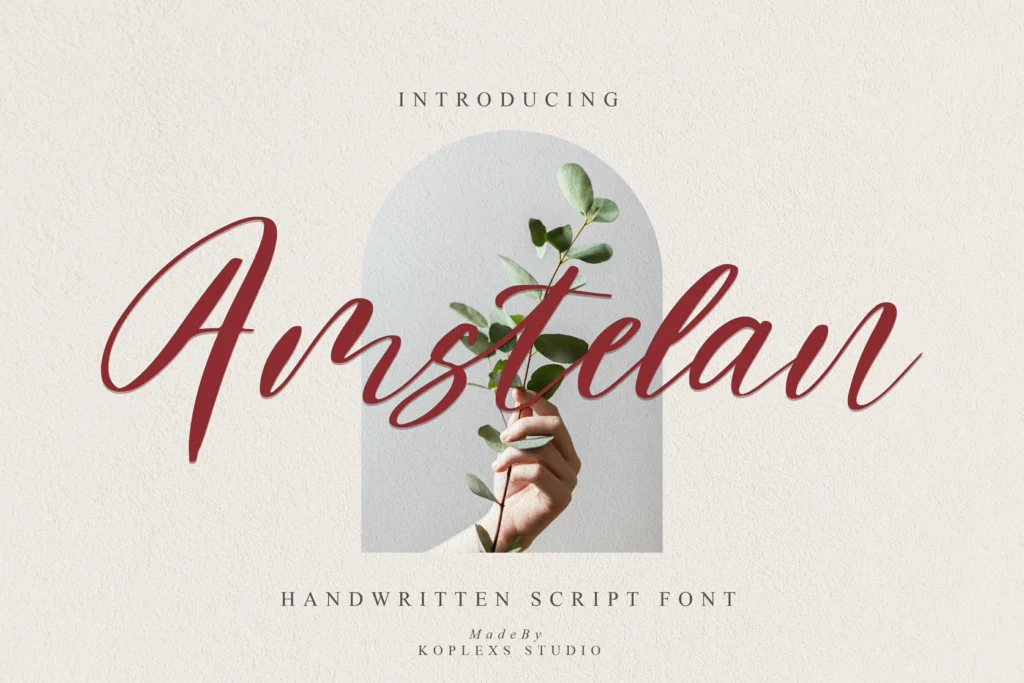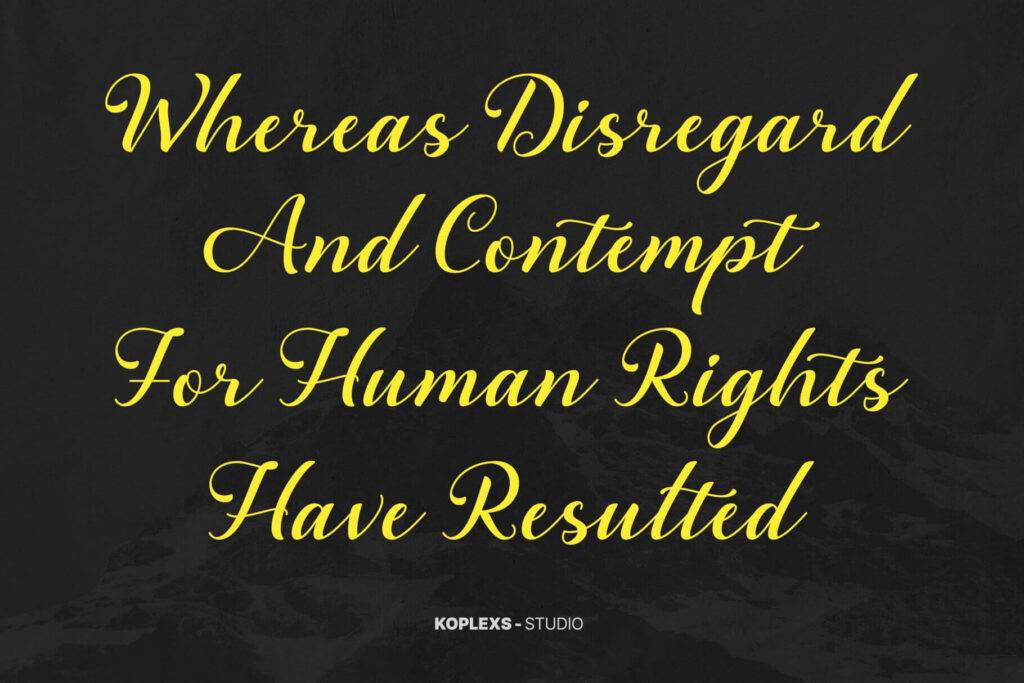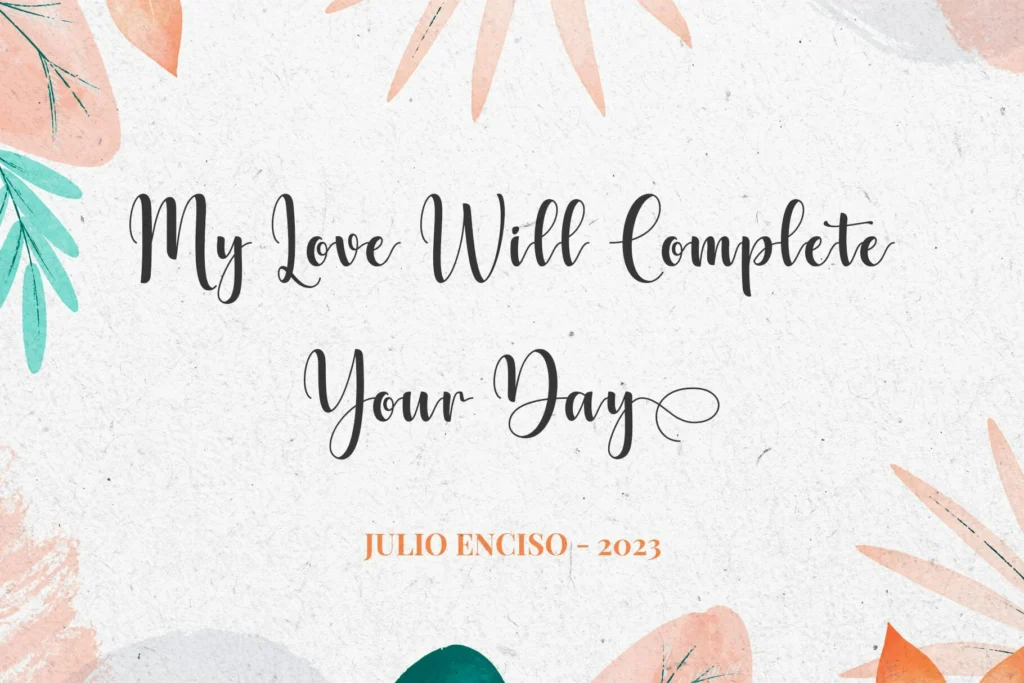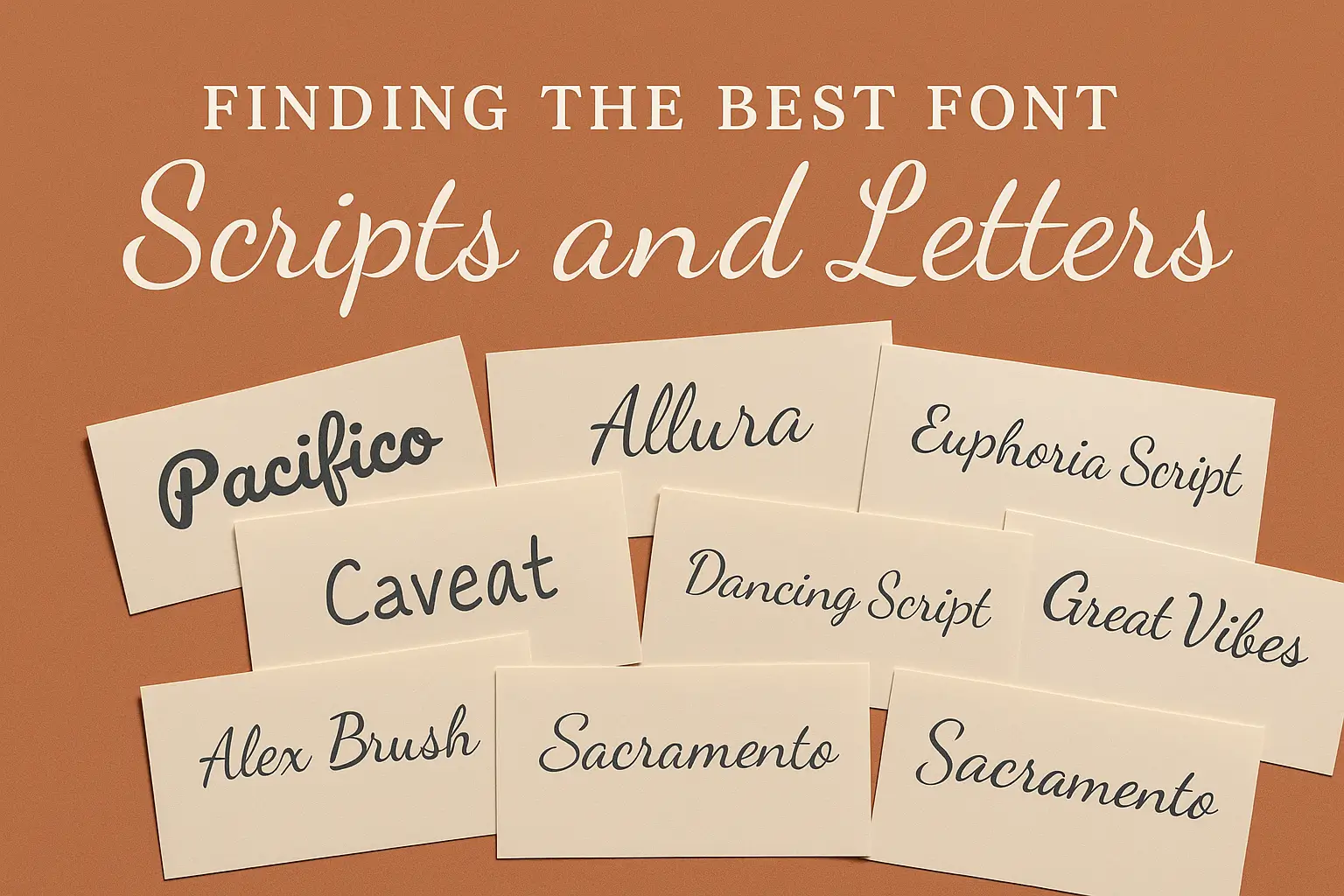
Finding the Best Font for Scripts and Letters
Font for Scripts
Font for Scripts That Bring Words to Life
Imagine reading a wedding invitation, a movie script, or a brand logo that instantly feels elegant and emotional. That is the power of a font for scripts. Fonts are not just letters; they express character, personality, and tone.
Choosing the right script font is like picking the perfect outfit for your words. It tells your audience who you are before they even start reading. In this article, we will explore the most popular and beautiful script fonts, how they work in different contexts, and what makes them stand out.
Understanding Script Fonts
A script font is inspired by handwriting and calligraphy. It is flowing, stylish, and often filled with character. Script fonts bring a human touch to design, making your text feel warm and personal.
There are many types of script fonts, each creating a unique mood:
• Formal script fonts give a luxurious, classic impression
• Casual script fonts feel friendly and modern
• Brush script fonts add energy and creativity
Why Script Fonts Are Important
According to a design survey by Adobe, typography can increase brand recognition by over 70 percent. Script fonts help you express emotions visually and instantly connect with your audience.
Top Fonts for Scripts You Should Know
Here are the most-loved fonts used by designers and creators around the world.
Font NameFont StyleBest Use
Yellow MollyElegant and timelessInvitations, luxury branding
Mickey CarleyFlowing and gracefulWedding designs, premium logos
Dancing ScriptPlayful and friendlyBlogs, greeting cards, creative ads
PacificoCasual and brush-stylePosters, social media graphics
Alex BrushClean and classicProfessional branding, brochures
SacramentoLight and feminineFashion content, lifestyle blogs
LovariaHandwritten and legibleNotes, educational materials
Euphoria ScriptArtistic and elegantPackaging, creative campaigns
Courier NewMonospaced and structuredScreenwriting and movie scripts
Script Fonts for Creative Projects
Mickey Carley Font
Mickey Carley - Modern Handwritten Script Font
A modern handwritten script with elegant flow and natural charm. Created by Koplexs Studio, Mickey Carley is perfect for branding, logos, wedding invites, and social media. Explore Mickey Carley today and add a stylish, human touch to your next design.
Welcome Dream Font
A delicate and dreamy script font that blends elegance with playfulness. Also from Koplexs Studio, it works beautifully for wedding stationery, packaging, and visual storytelling. Try Welcome Dream now and infuse your text with whimsy and sophistication.
Angelica Signature Font
This signature-style script font delivers a chic and personal aesthetic. Ideal for premium branding, logos, and signatures that need a distinctive flair. Choose Angelica Signature when you want your text to feel like a handwritten statement.
American Cloudie Font
American Cloudie - Modern Challigrapy Script
A refined calligraphy-script font that merges classic grace with a modern edge. Designed by Koplexs Studio, it suits high-end brands, invitation design, and elegant signage. Add American Cloudie to your toolkit for high-impact, elegant script typography.
Yellow Molly Font
Yellow Molly - Modern Callygraphy Script Font
Yellow Molly is a cheerful and modern script font with smooth curves and a casual handwritten touch. It is perfect for branding projects, social media posts, and creative packaging. Bring energy to your words with Yellow Molly and make your designs stand out with effortless charm.
The Brown Font
The Brown - Handwriting Script Font
The Brown offers a classic handwritten style with balanced strokes that create a timeless look. It fits well for vintage branding, photography logos, and elegant invitations. Download The Brown today to add a sophisticated script style that never goes out of fashion.
Amstelan Font
Amstelan - Handwritten Script Font
Amstelan is a refined cursive font that blends soft motion and stylish curves. Its elegant presence makes it ideal for wedding invitations, feminine branding, and graceful designs. Try Amstelan and bring romantic beauty to your next creative project.
Lovaria Font
Lovaria Font - Handwriting Script Typeface
Lovaria brings love and elegance into one design. With its heartwarming handwritten strokes, this script font is excellent for greeting cards, personal blogs, and logo design. Express your creativity with Lovaria and give your text a warm, personal feel.
Nathalyn Font
Nathalyn - Script Calligraphy Font
Nathalyn combines a luxury handwritten touch with modern elegance. Its flowing letters are ideal for fashion branding, magazine titles, and artistic projects. Choose Nathalyn to communicate elegance and class in every letter you design.